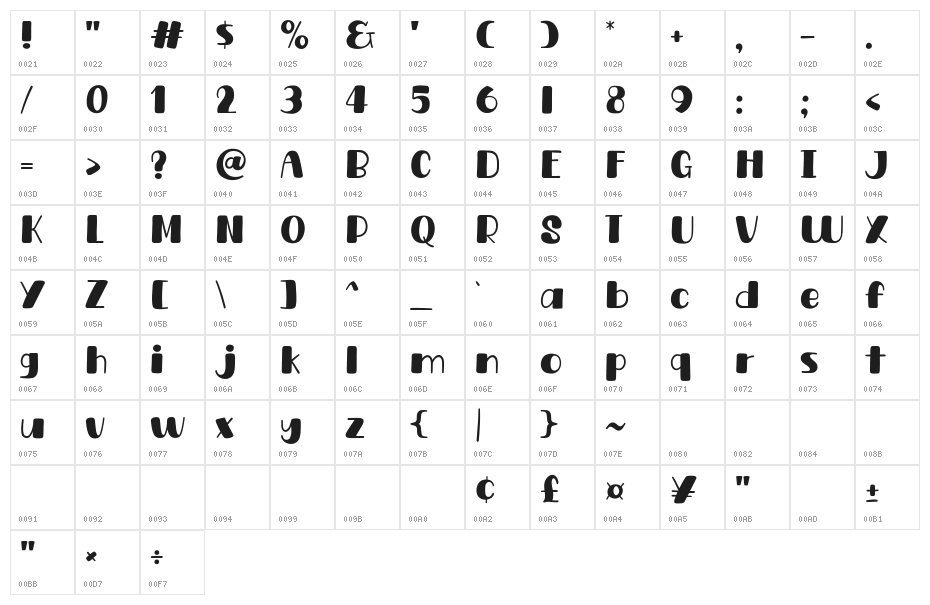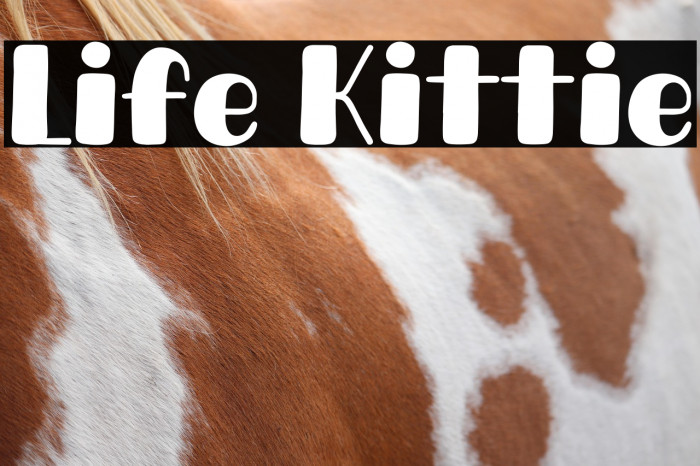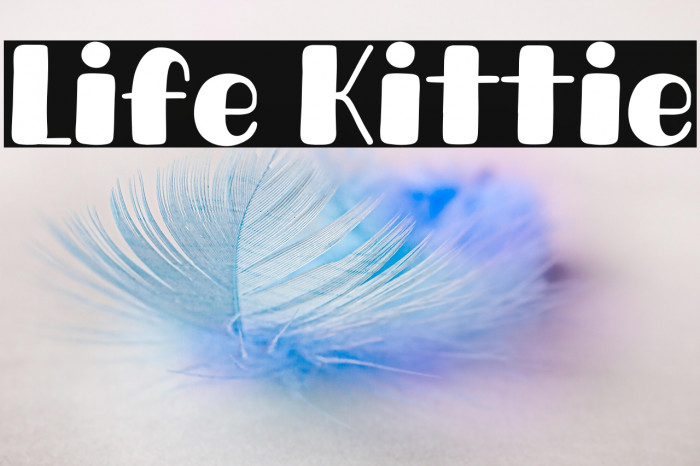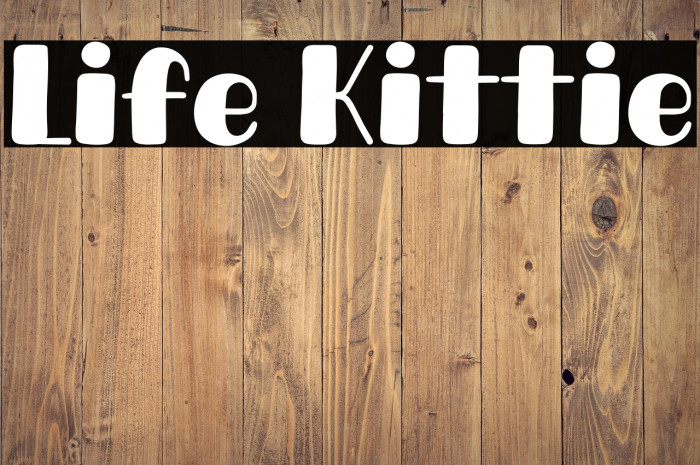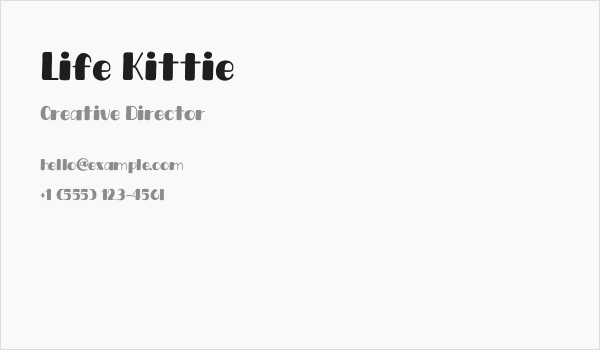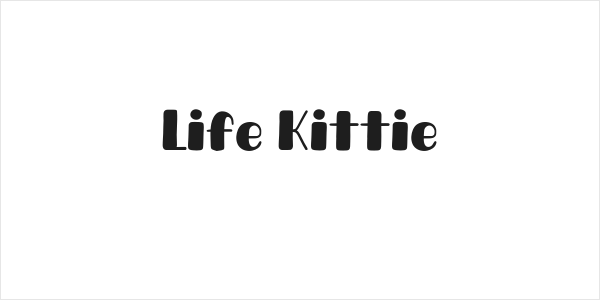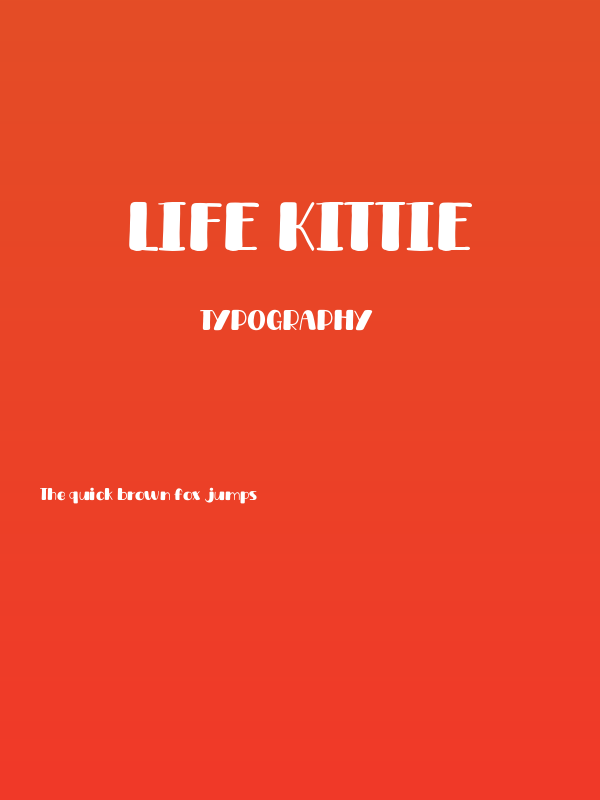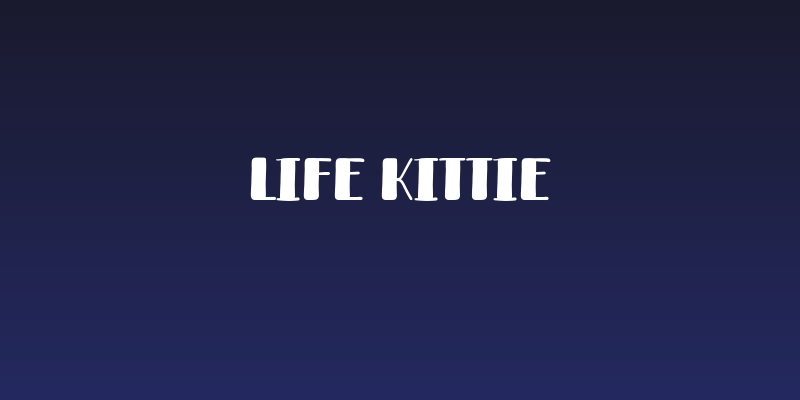
Life Kittie Font
Life Kittie Description
This playful and bold font features a unique blend of rounded and slightly irregular shapes, giving it a whimsical and friendly appearance. The uppercase letters are robust and slightly condensed, while the lowercase letters maintain a consistent flow with a touch of quirkiness. The numbers are bold and rounded, matching the overall style of the alphabet. Special characters are creatively designed, adding to the font's charm. The font's thick strokes and rounded edges make it highly legible, while its distinctive style ensures it stands out in any design. Ideal for projects that require a fun and approachable aesthetic, this font is perfect for children's books, playful branding, and creative posters.
Overall StylePlayful, Whimsical, Fun
Proposed ProjectsChildren's books, playful branding, creative posters, and fun invitations.